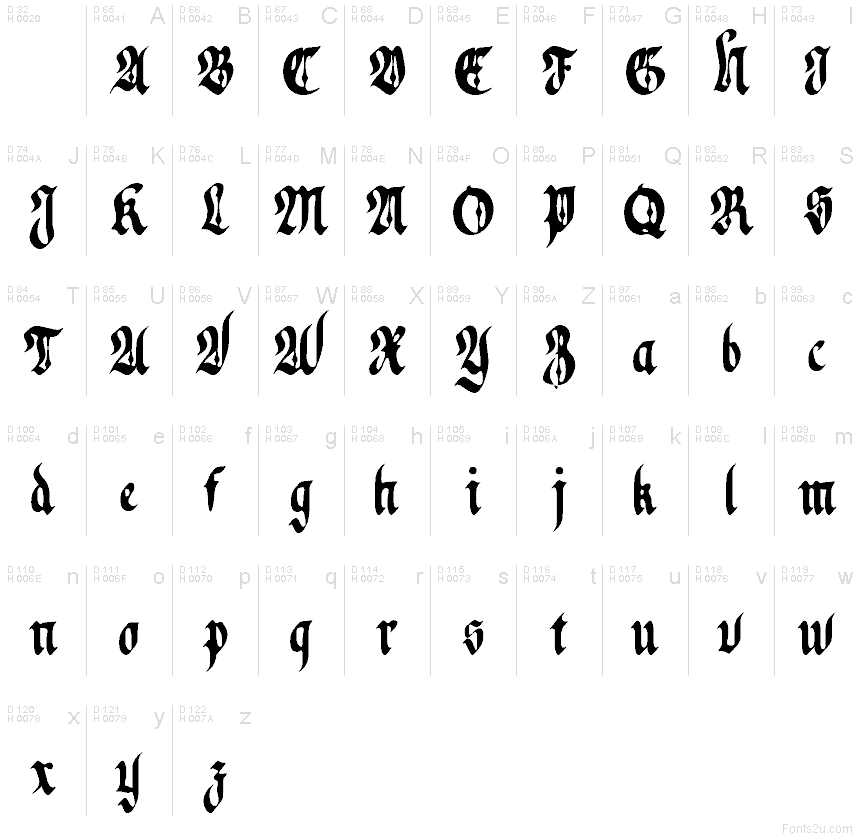
CSCanopusDrawn-Regular Demo
CS Canopus Drawn font by Craft Supply Co. is a gothic medieval typeface with a classic elegance that captivates eyes at first glance. It is condensed in width and inspired by Victorian elements that add more value to its traditional appeal. The historical aesthetic shows gracefully in every inch of this exquisite font which includes flawless ornamental details.